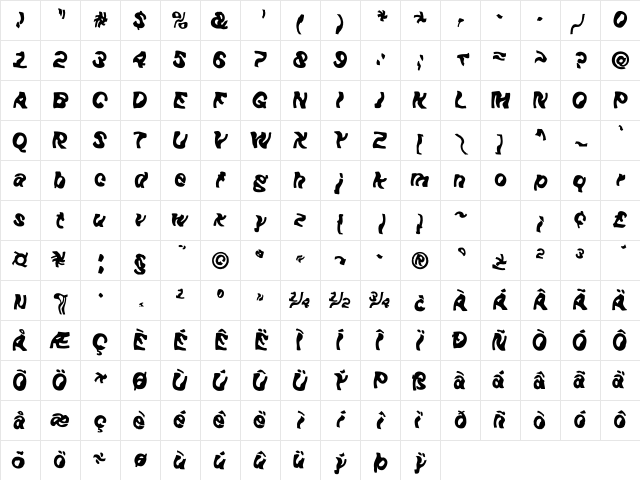
Funky40 Becker Regular Free Font
Funky40 Becker Regular
Complete Funky40 Becker Regular glyph index. Displaying only characters natively supported by Funky40 Becker Regular font.
Design Context for Funky40 Becker
Funky40 Becker has an approachable, lighthearted character - its loose, expressive forms are well-suited to children's content, casual branding, and fun-first design.
Font Pairing: Pairs well with a rounded or humanist sans for body copy, maintaining the friendly tone without relying on Funky40 Becker to carry extended reading.
Pro Tip: Use Funky40 Becker at larger display sizes where its expressive character can land. Pair with a clean, simple sans for body copy to maintain readability.